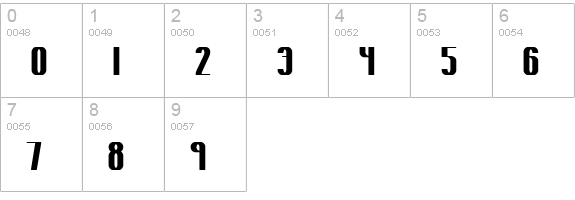
Yielding BRK Font Details
Yielding BRK font is a stunning display typeface that exudes elegance and sophistication. Its sleek and modern design makes it perfect for a wide range of creative projects, from branding to editorial design. The font features clean lines and sharp angles that give it a contemporary and stylish look. Yielding BRK font is not only visually appealing but also highly versatile, making it suitable for various design applications. Whether you're working on a logo, poster, website, or any other project, this font will add a touch of class and sophistication to your work. The best part is that Yielding BRK font is completely free to download at FontsMarket.com. So you can elevate your designs without breaking the bank. Don't miss out on this fantastic opportunity to enhance your creative projects with this beautiful typeface. Download Yielding BRK font today and unleash your creativity!